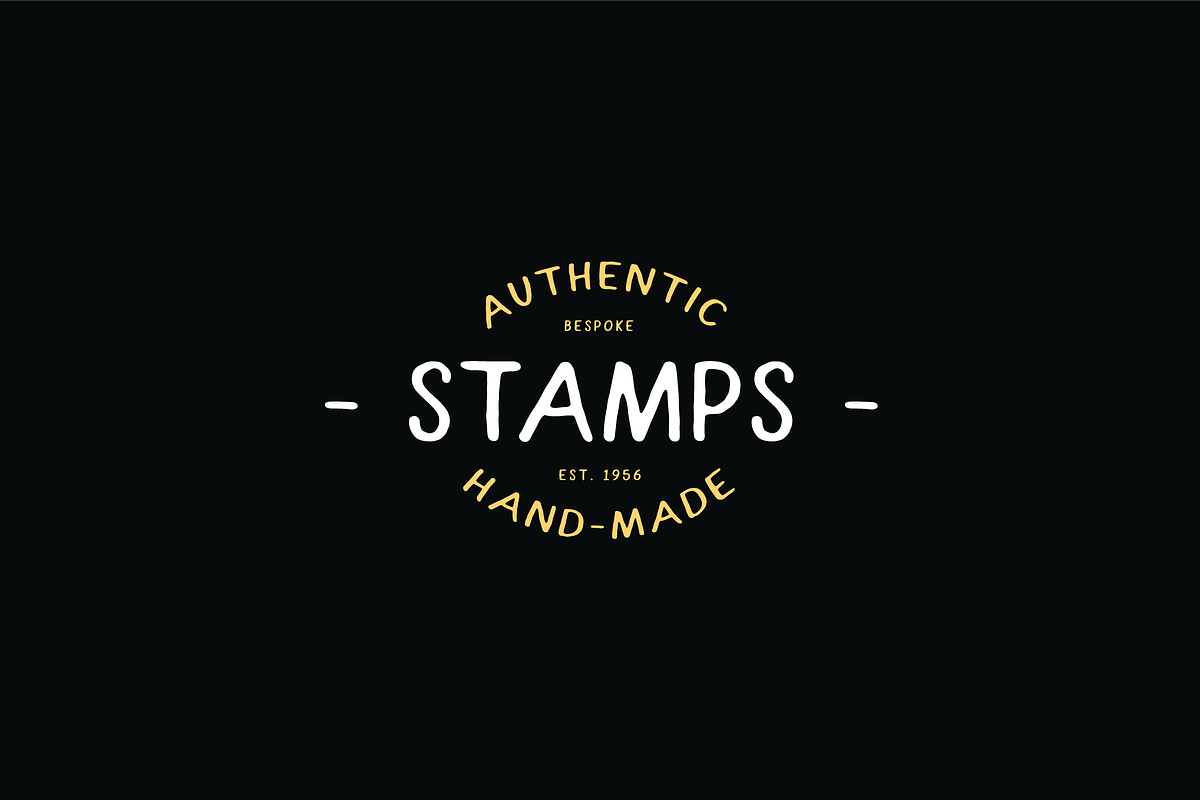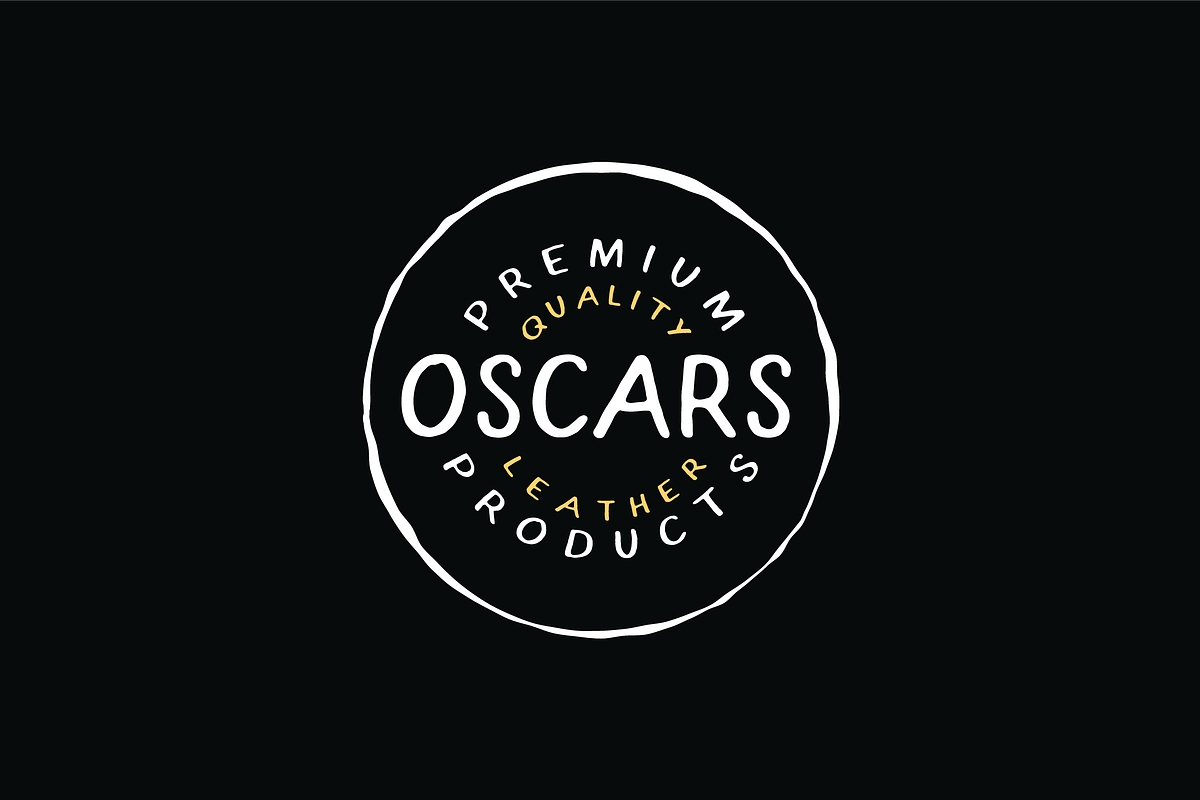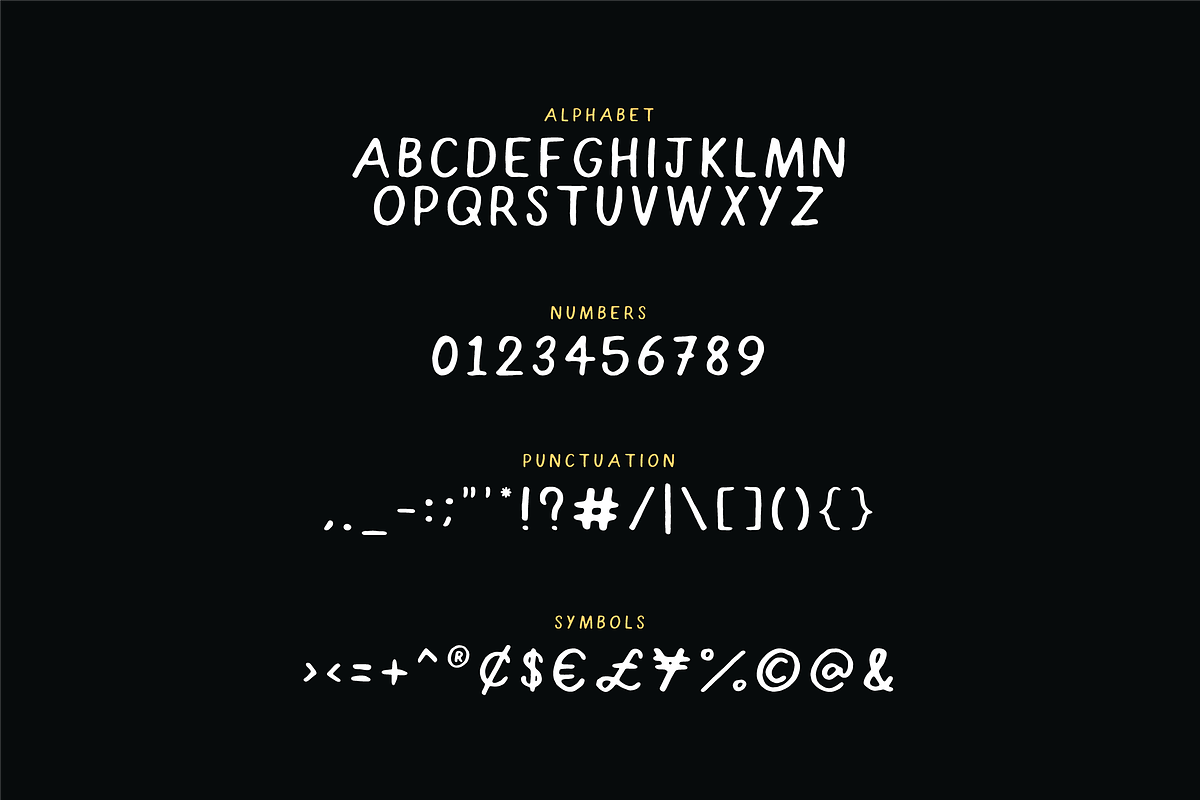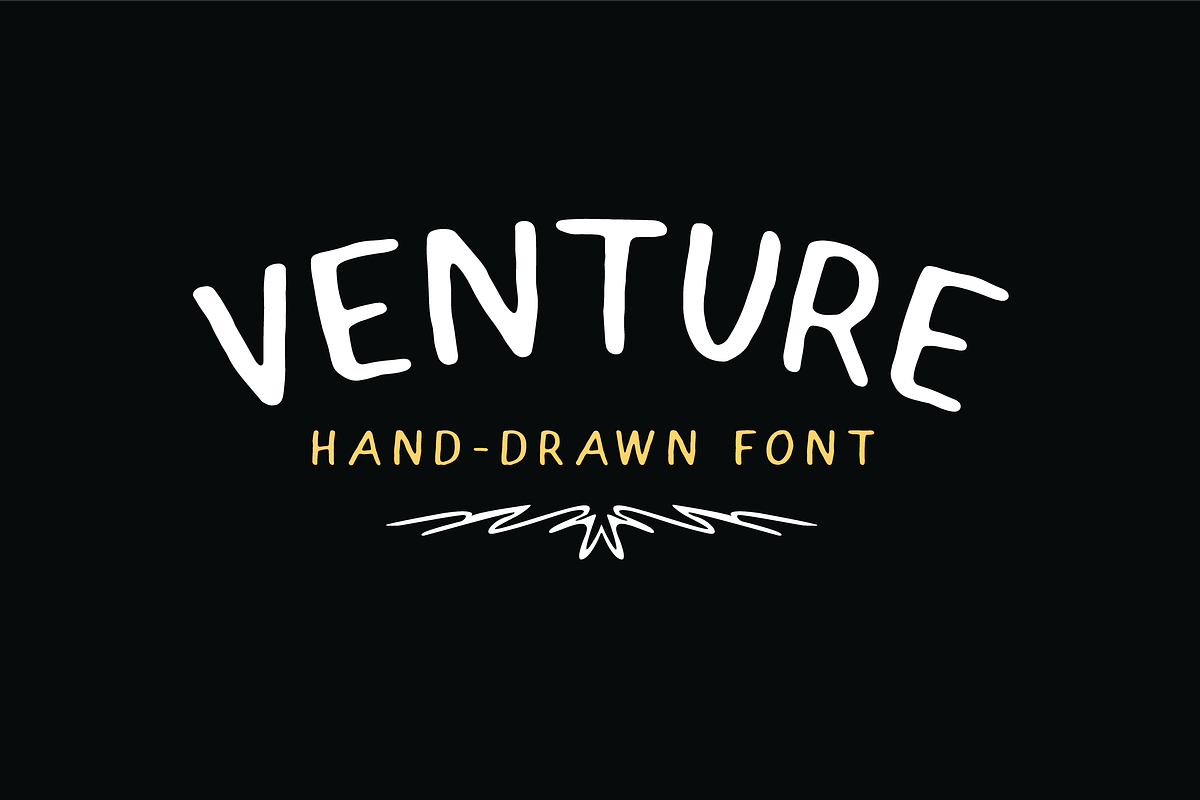
Venture - Hand-Drawn Font
Venture - Hand-Drawn Font by StephenBradbury is a font selected for branding, posters, packaging, typography.
Why Venture - Hand-Drawn Font is worth a look
Venture - Hand-Drawn Font by StephenBradbury fits naturally into Branding, posters, packaging, typography.